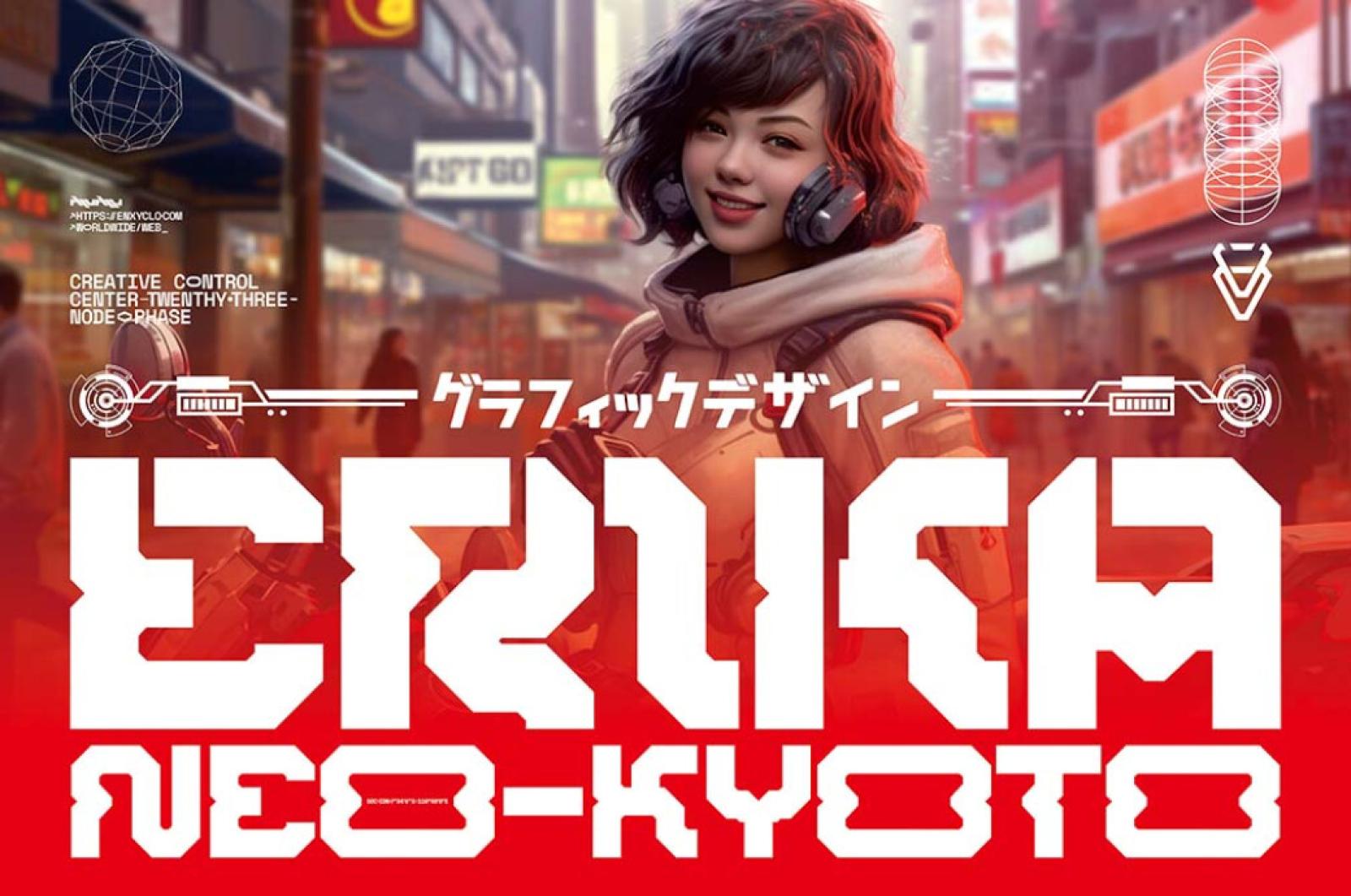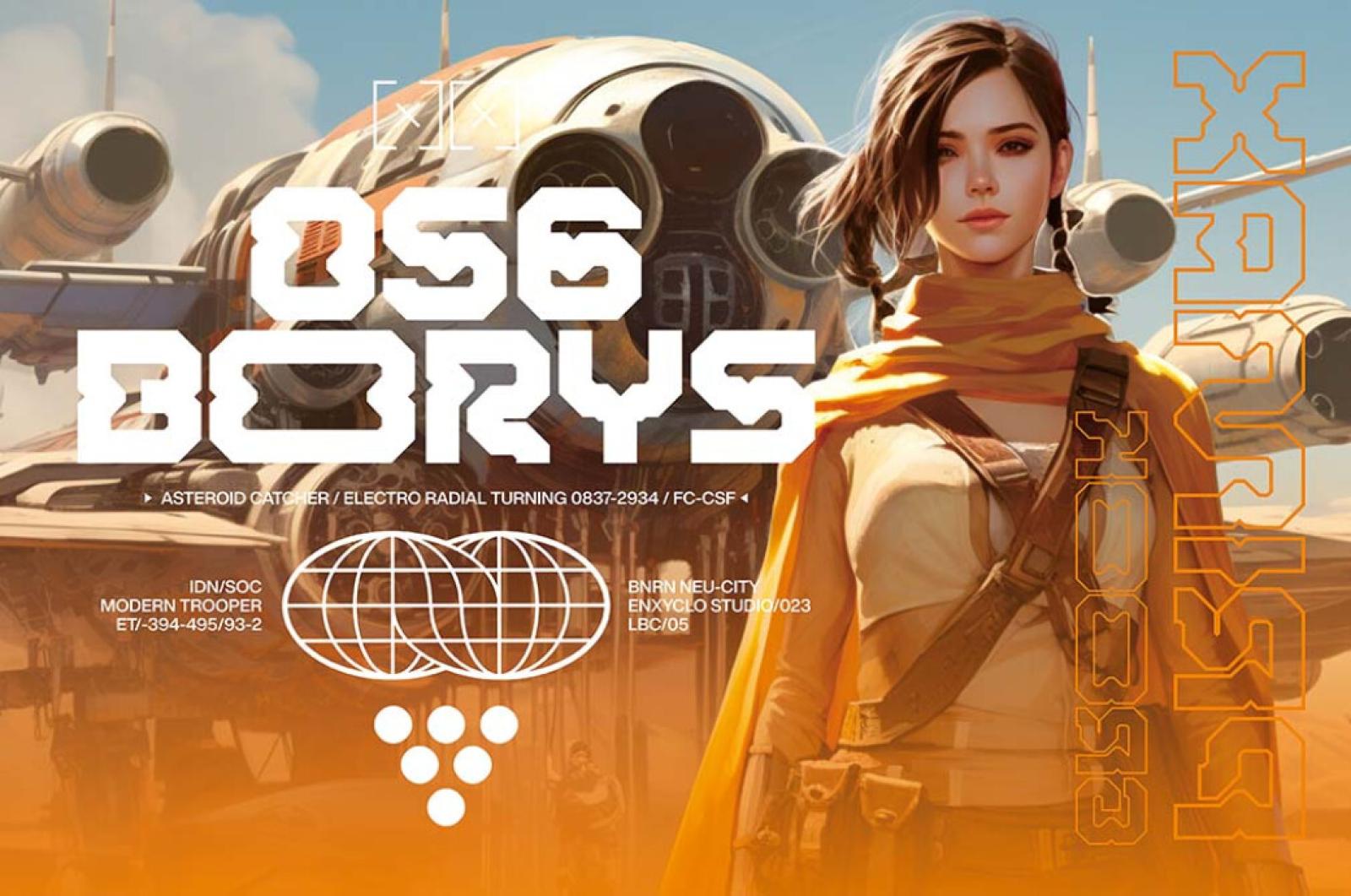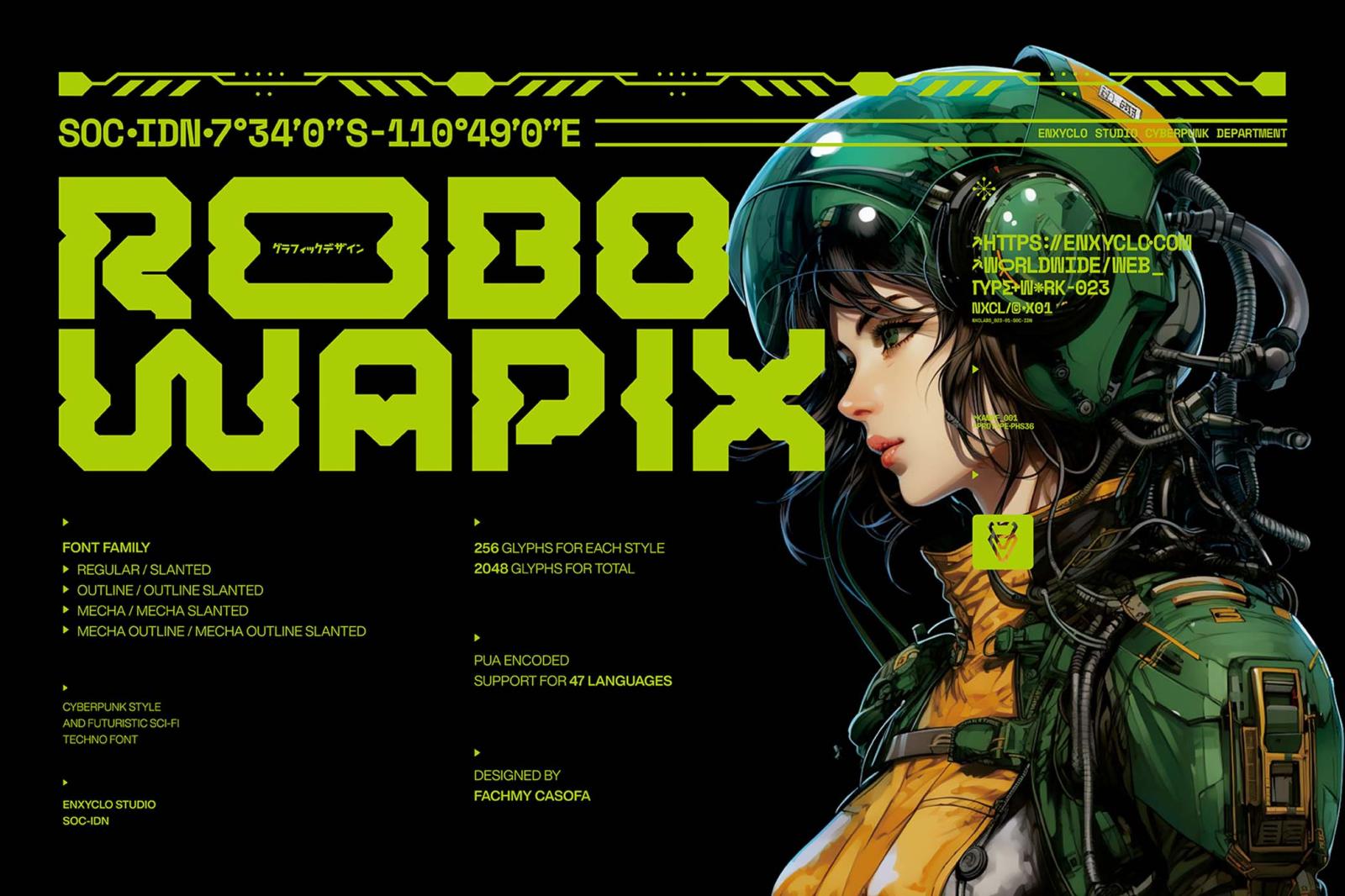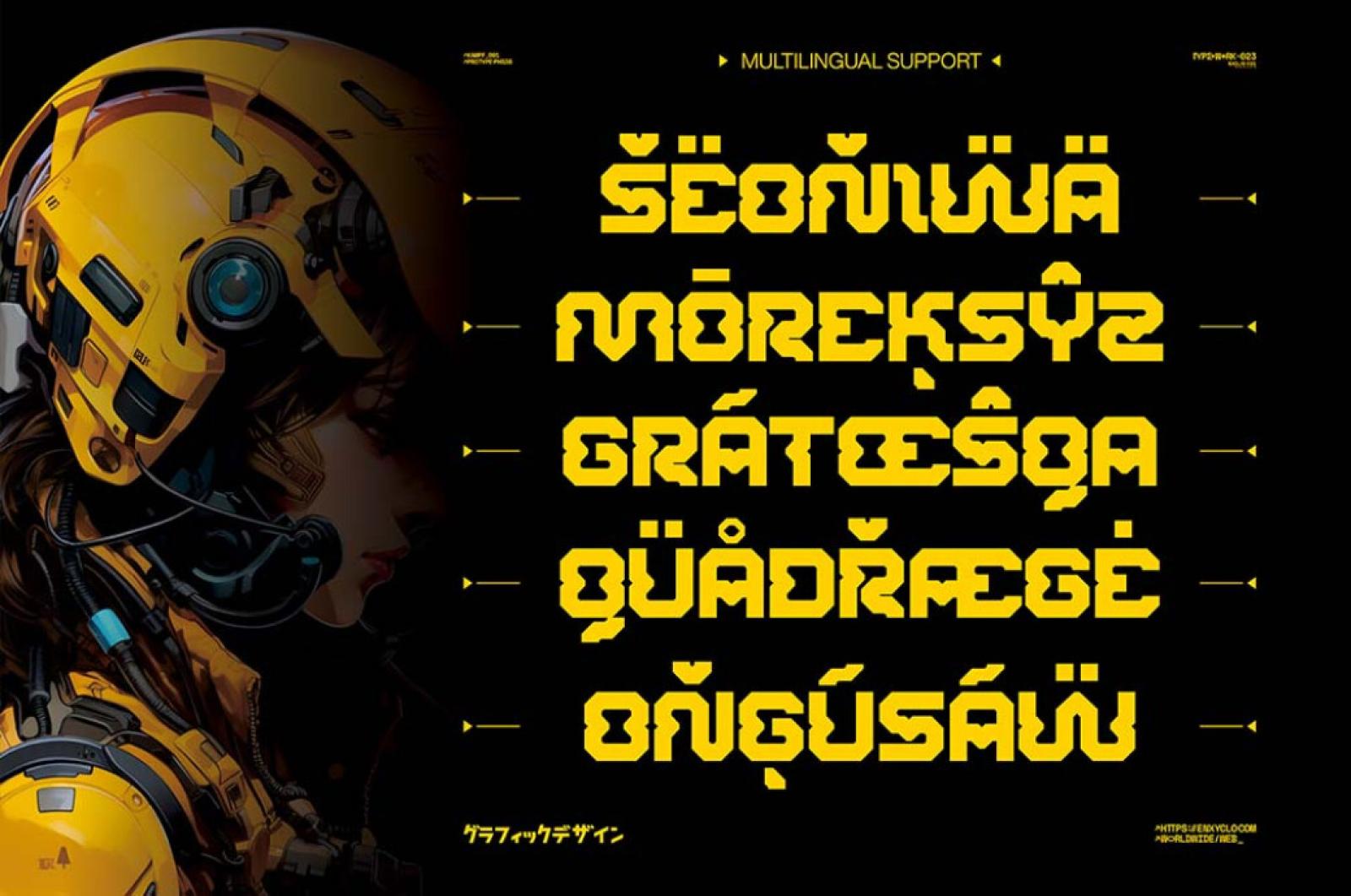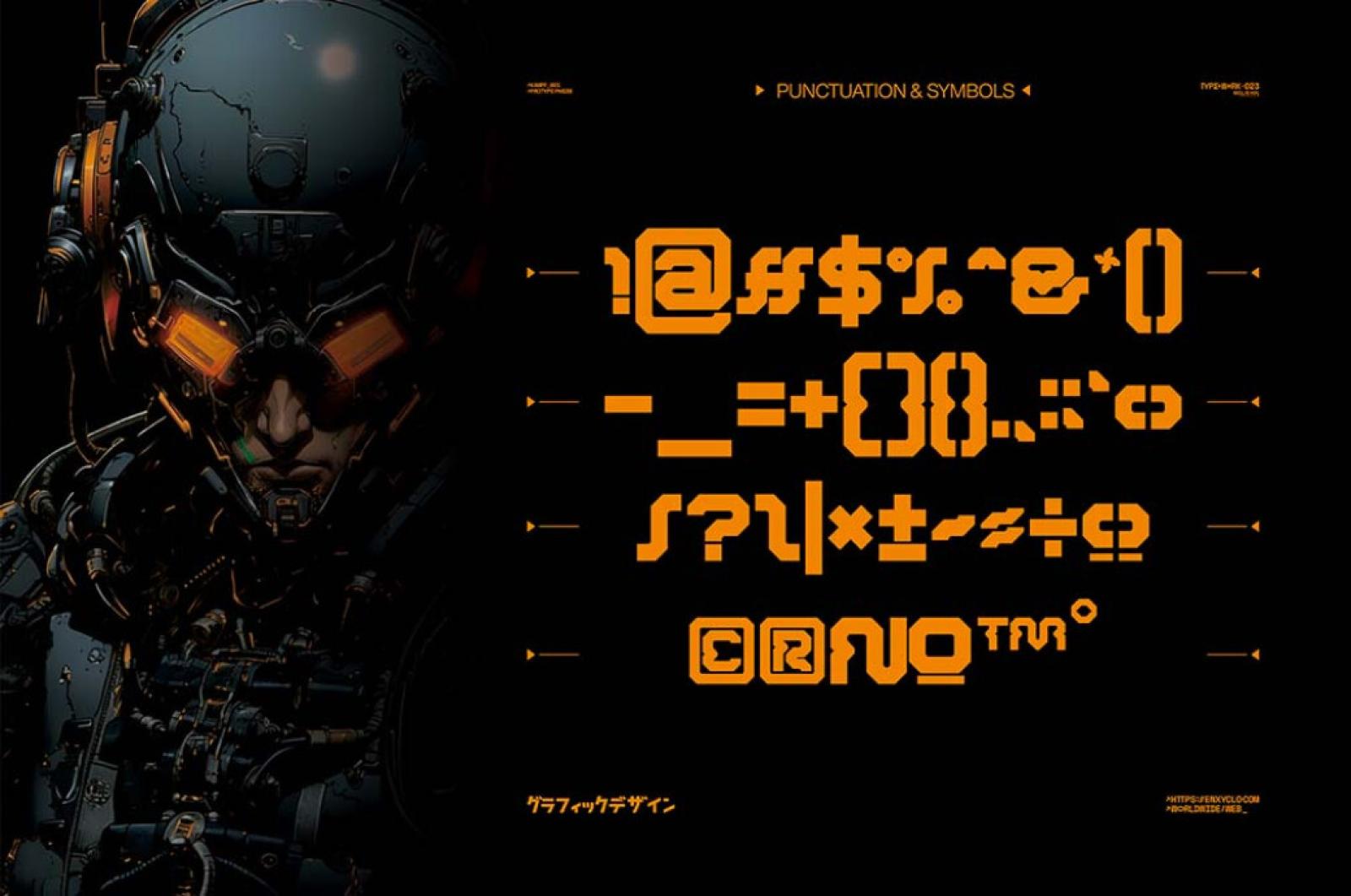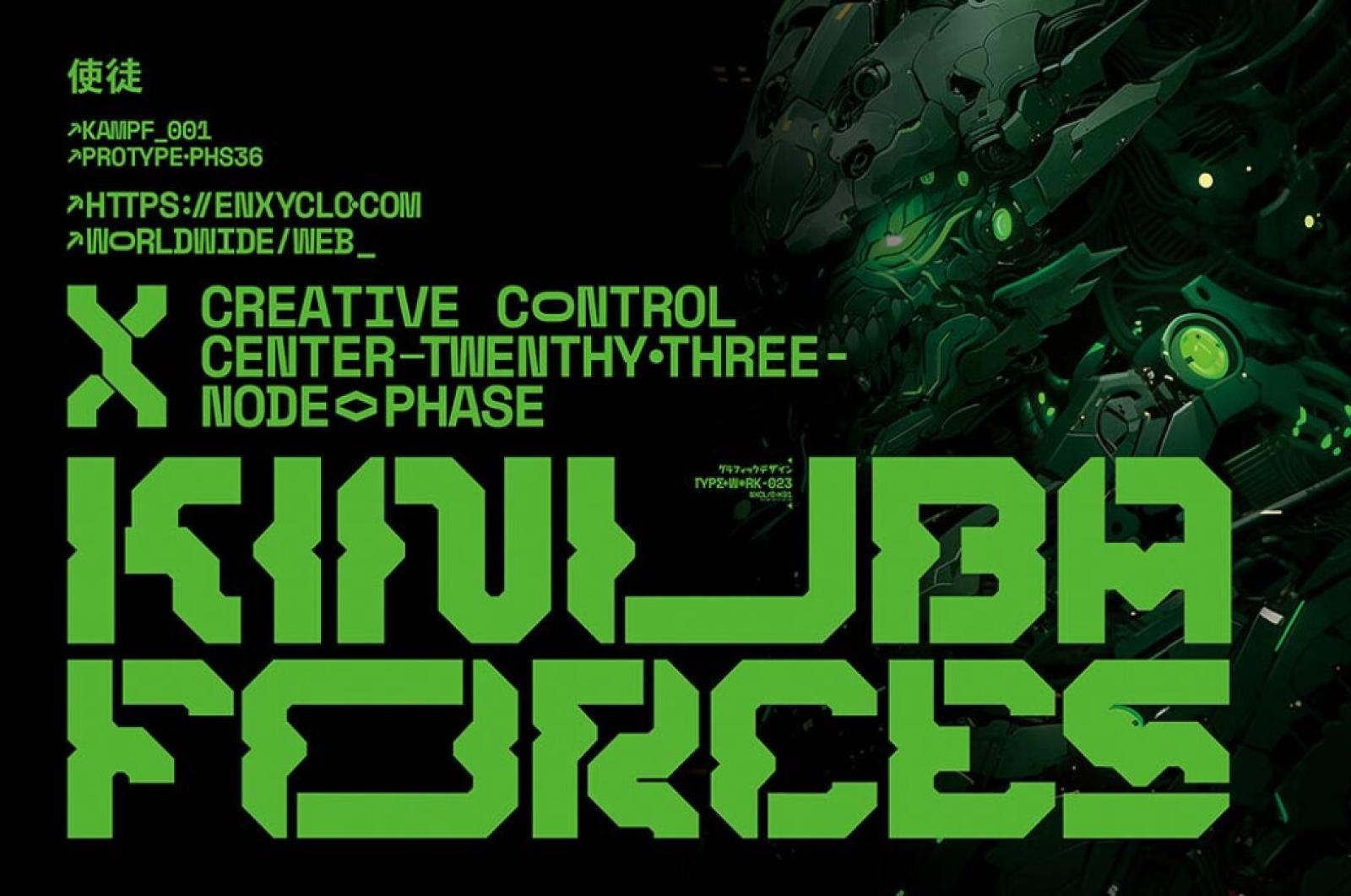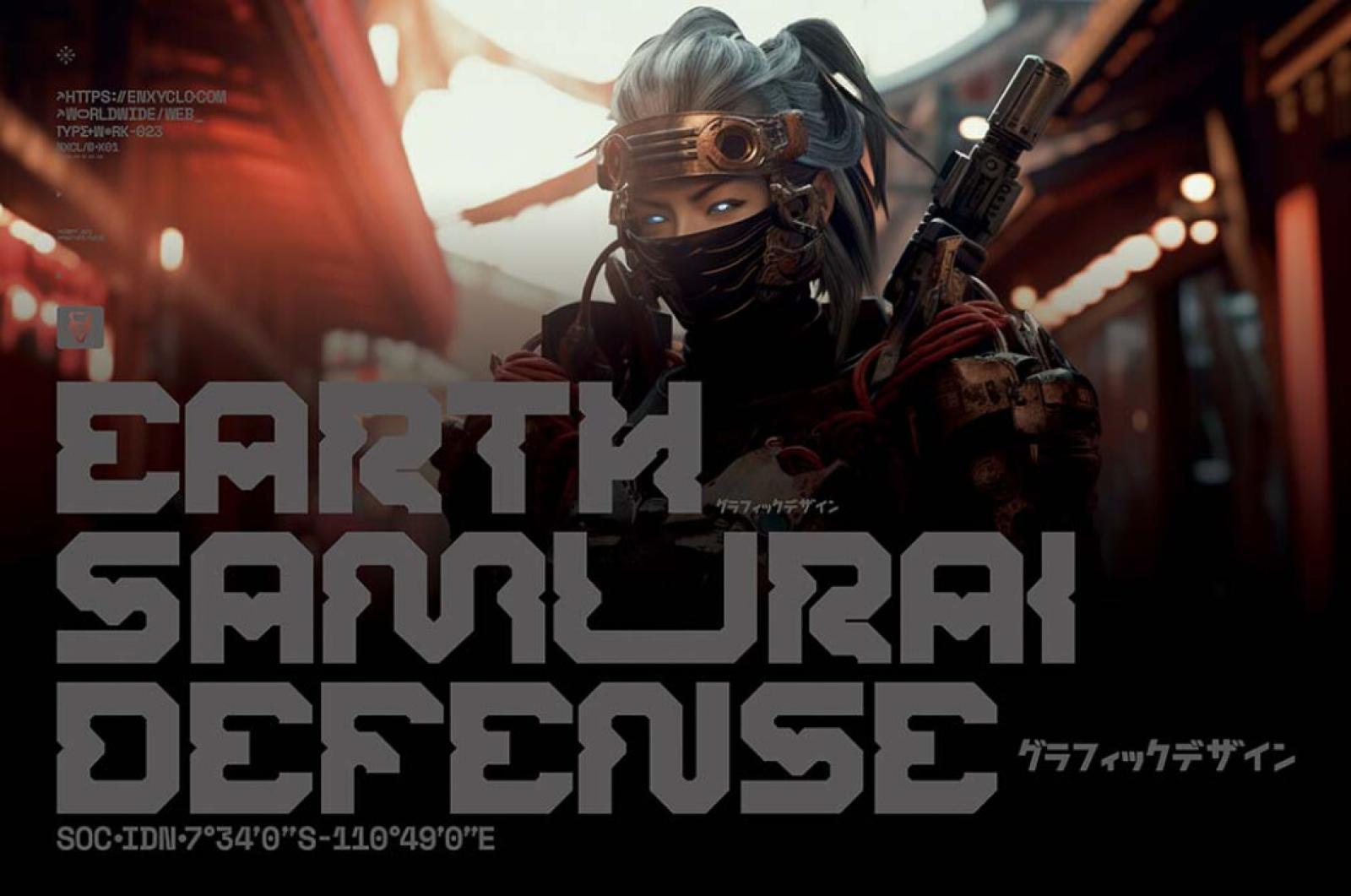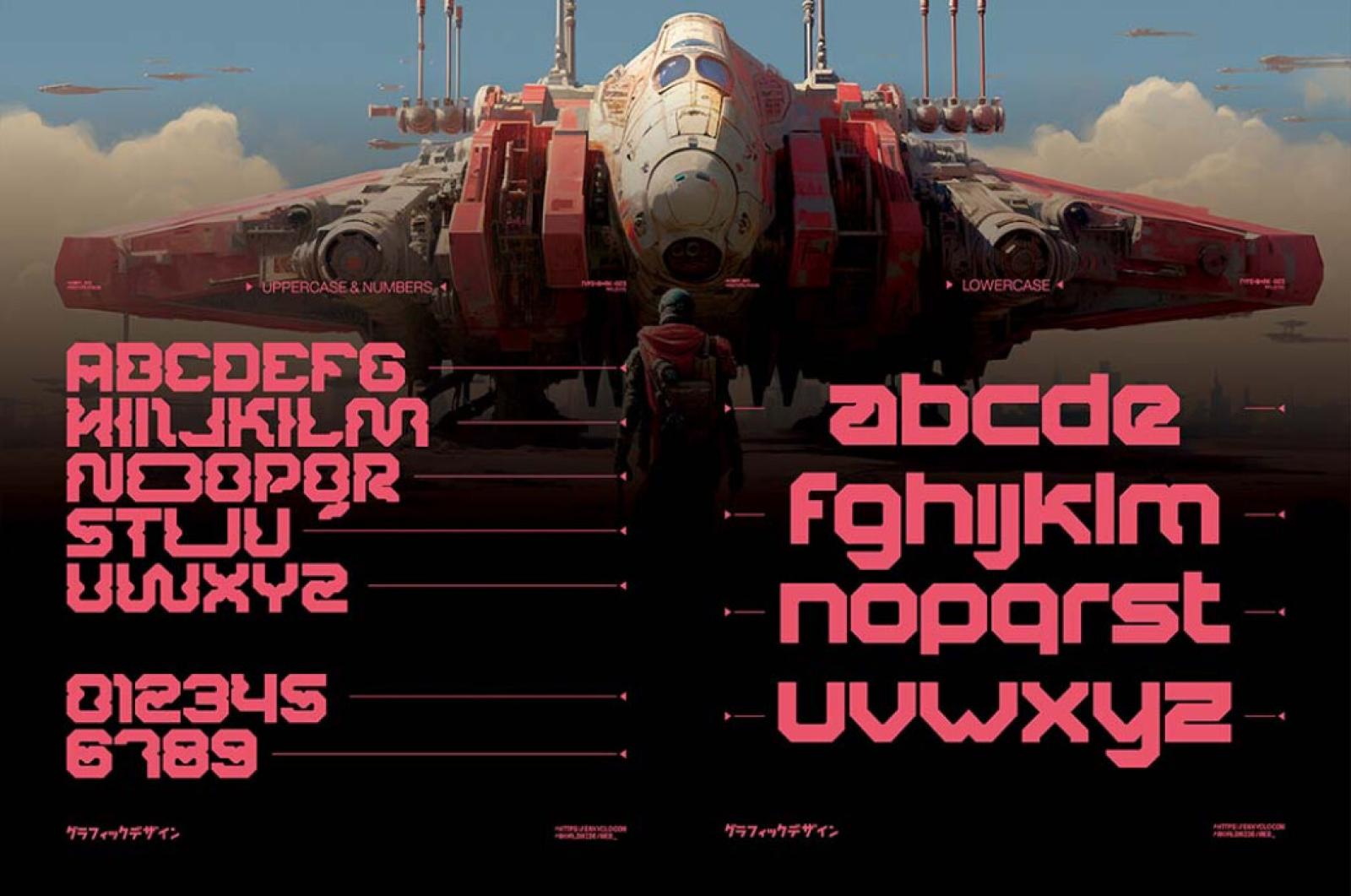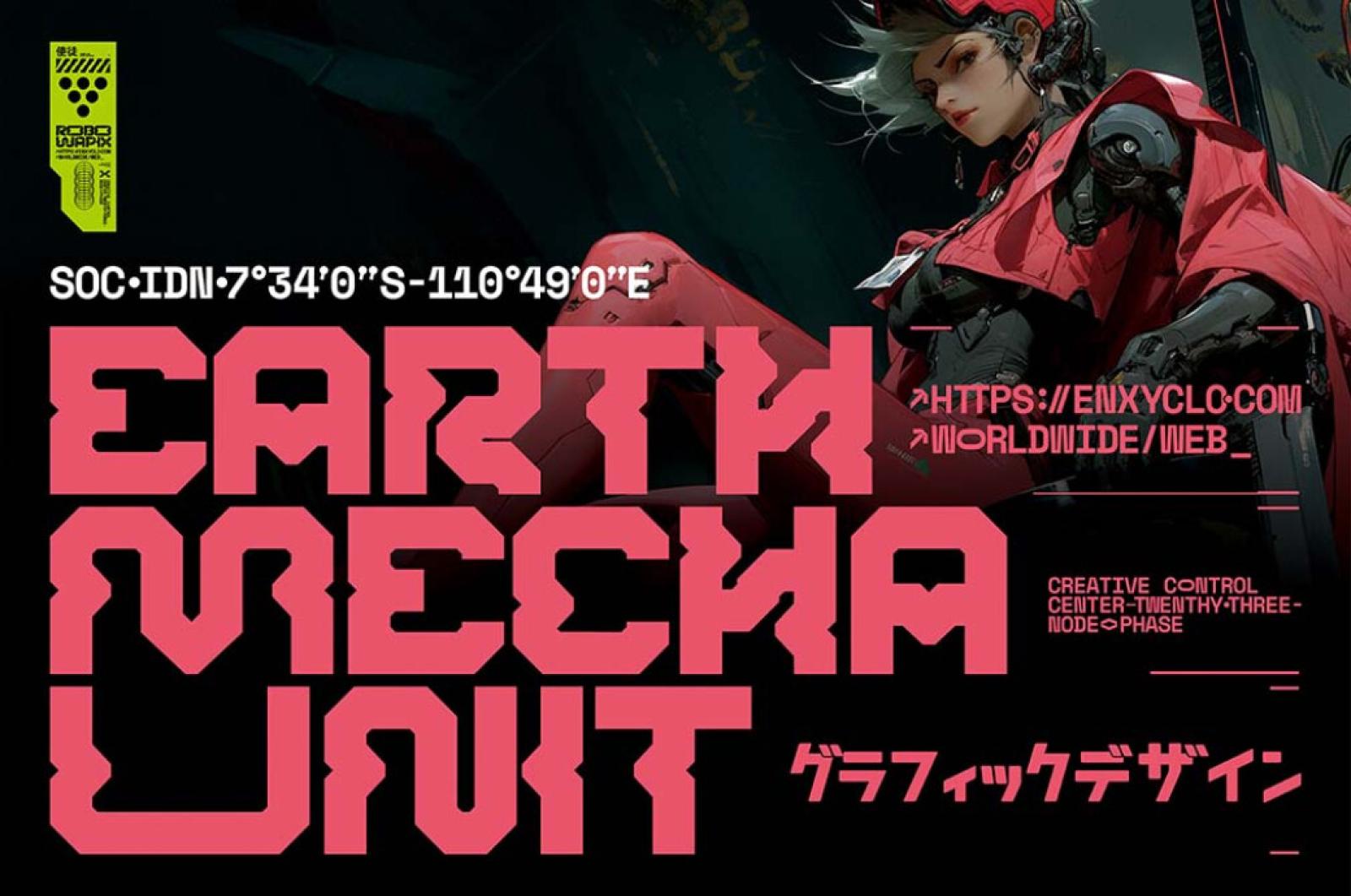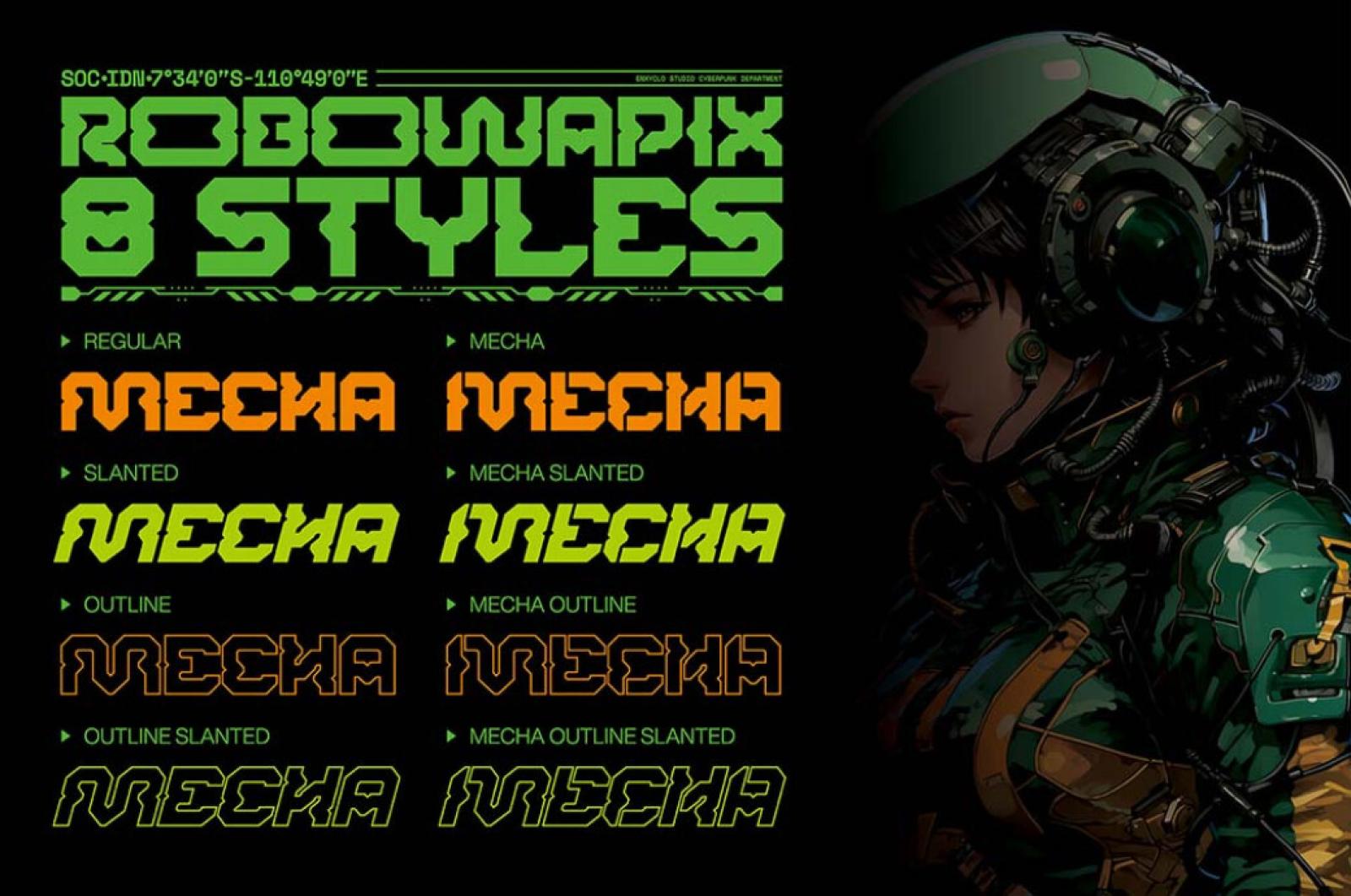
NCL Robowapix — Futuristic Mecha Font
Meet Robowapix, a font so futuristic it could have been conceived in the tech-laden landscapes of "Akira" or the cybernetic worlds or retro mecha.
How about a font that represents the pinnacle of futuristic typography? Robowapix feels like designed by the intelligent minds of the "Code Geass" universe or the engineers in "Mobile Suit Gundam". It's a bold embodiment of classic futurist concepts realized in 8 styles (Regular, Regular Slanted, Regular Outline, Regular Outline Slanted, Mecha, Mecha Slanted, Mecha Outline, Mecha Outline Slanted) and a total of 258 glyphs for each style. You can use it for regular branding & packaging projects or try it for the interface of a hyper-advanced mecha machine.